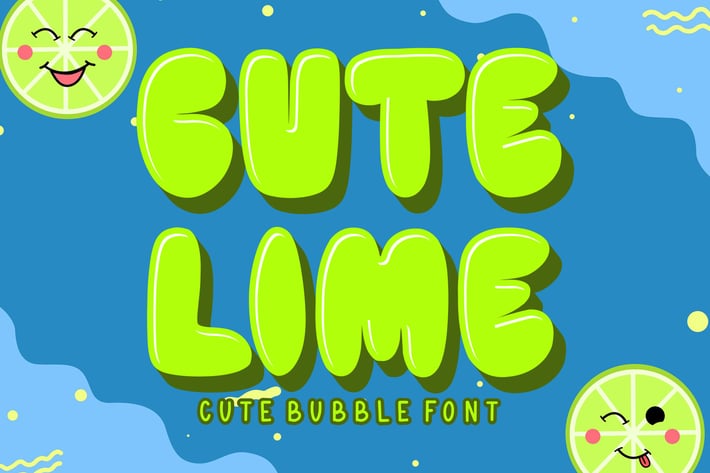
Cute Lime - Bubble Display Font
Cute Lime is a delightful and bubbly display font that radiates positivity and joy. Inspired by the playful essence of lime bubbles, this font features rounded letterforms with a touch of whimsy. Its cheerful and friendly design makes it perfect for adding a dose of cuteness to various projects. Whether you're creating invitations for a fun-filled party, crafting children's book titles, designing playful logos, or making vibrant social media posts, Cute Lime is the ideal choice. Embrace the lighthearted charm of this font, and watch it infuse your designs with a refreshing and adorable appeal that will surely bring smiles to everyone's face.